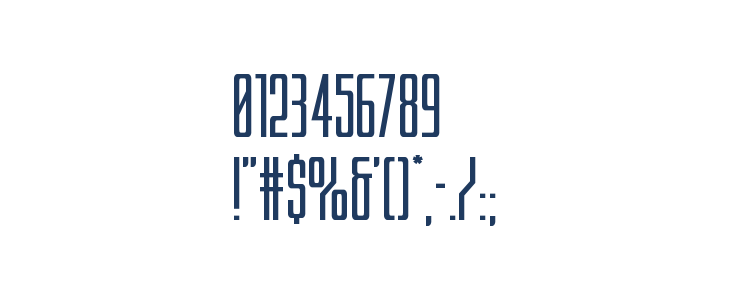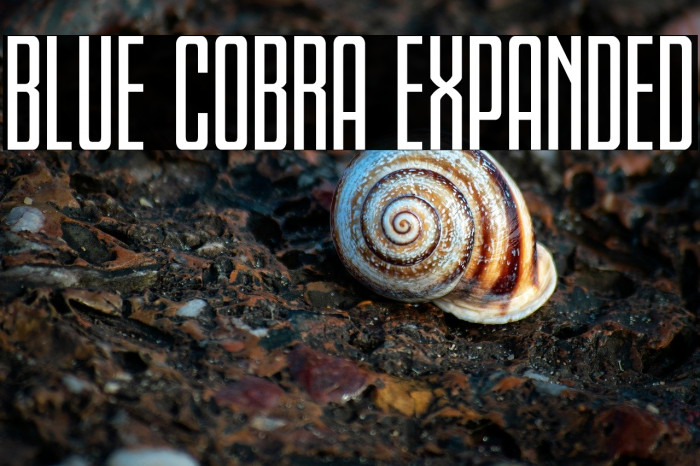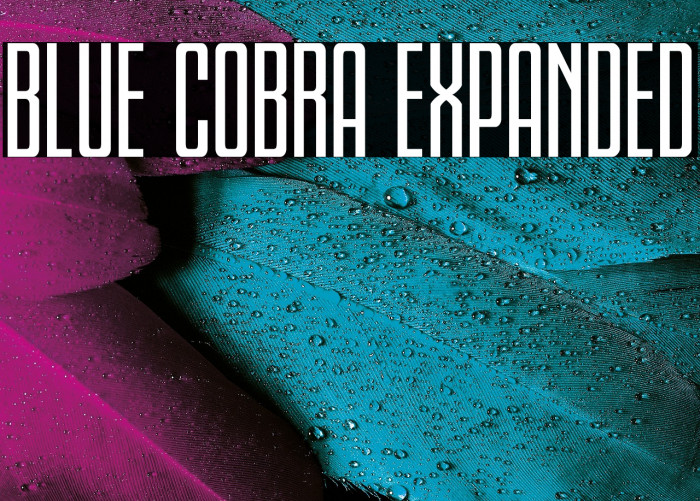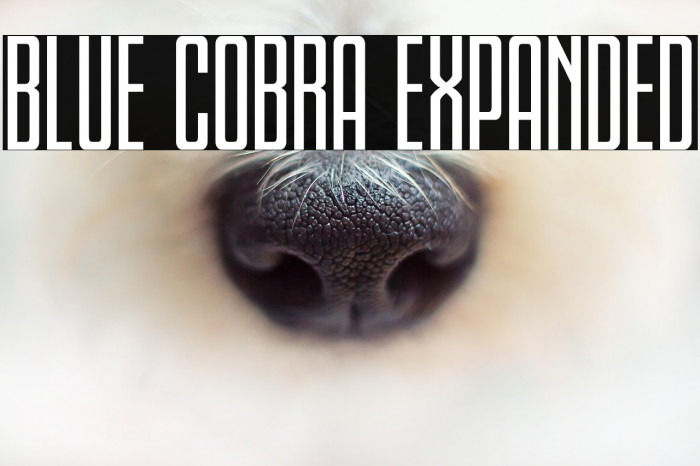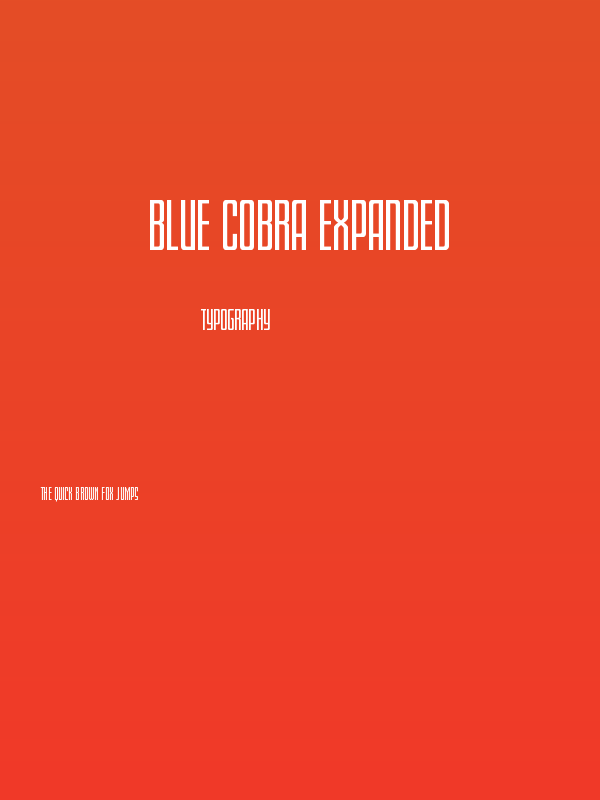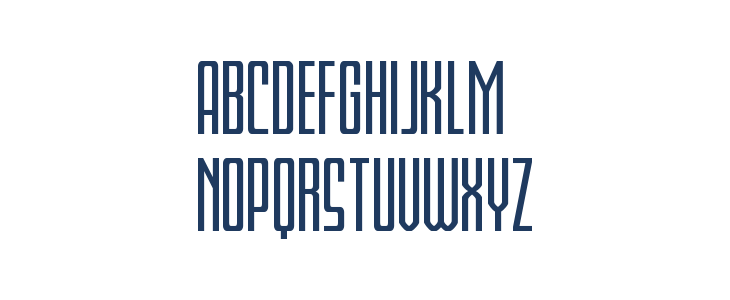
Blue Cobra Expanded Font
Blue Cobra Expanded Description
This font features a bold, geometric design with elongated, narrow characters that create a striking and modern appearance. The uppercase letters are tall and uniform, while the lowercase letters maintain a consistent height, contributing to a cohesive look. The numerals are similarly styled, ensuring readability and visual harmony. Special characters are designed with the same attention to detail, making them seamlessly integrate with the rest of the typeface. The overall style is distinctly modern and architectural, with a focus on clean lines and a structured form.